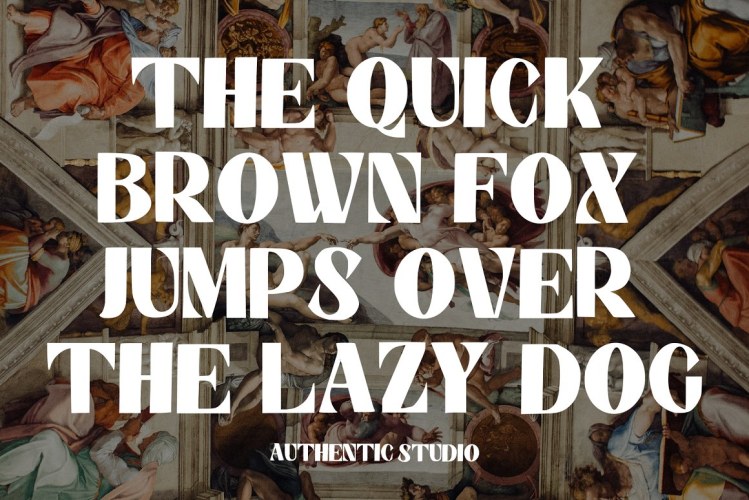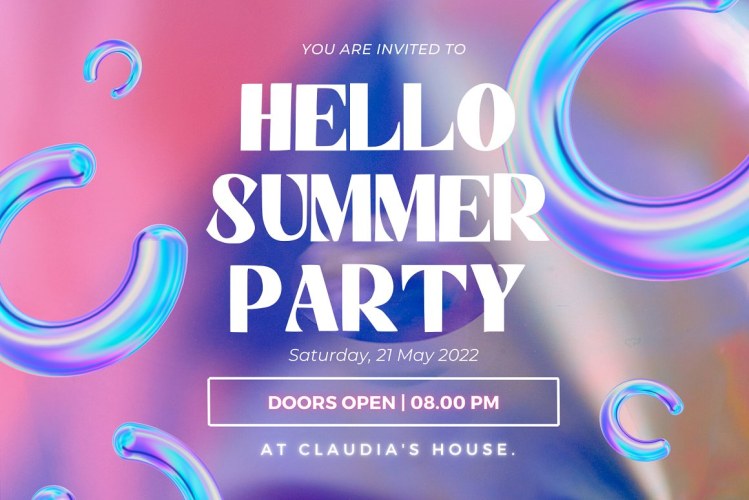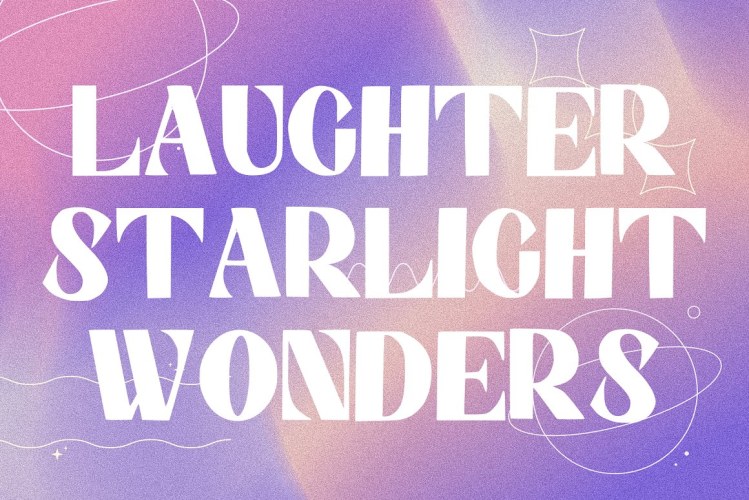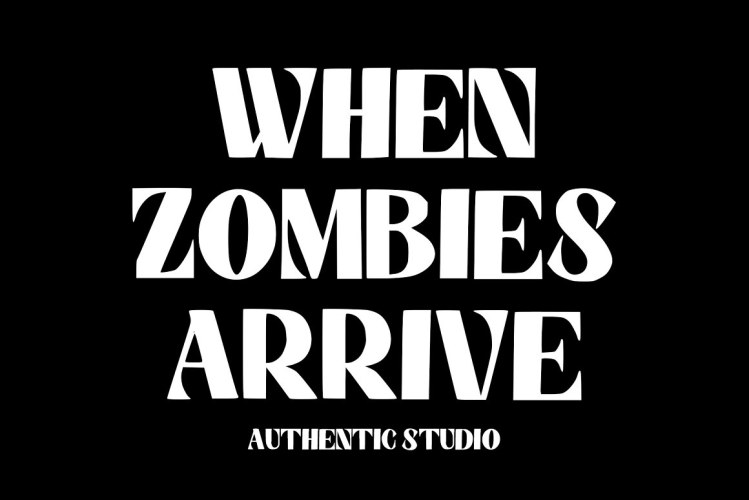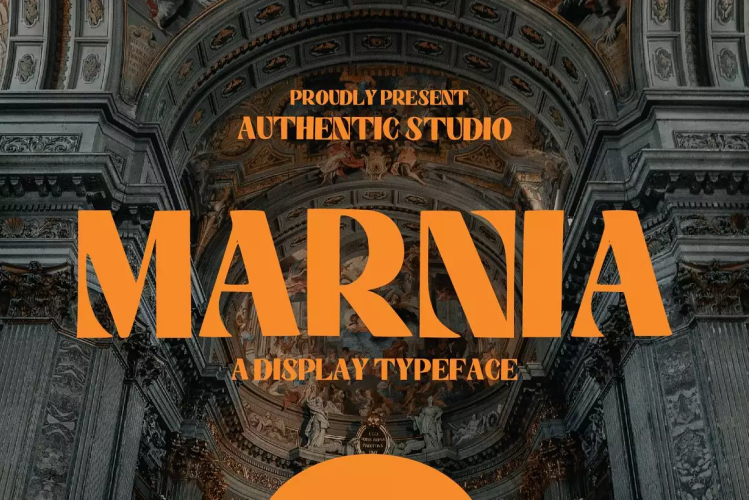
Marnia Hipster Font
Marnia is a Hipster inspired typeface. It’s retro, bold, and playful. Perfect if you need a dose of fun in your project.
Where Marnia Hipster Font works best
Marnia Hipster Font is built for size: event posters, hero headlines and billboard-style layouts.
High contrast display type like Marnia Hipster Font reads instantly in thumbnails and motion graphics.
What is Marnia Hipster Font good for?
Marnia Hipster Font is a Display Fonts typeface tagged Bold, Display, Display Fonts, Playful. It works well for headlines, logos, posters, social media graphics and branding projects that need a distinctive display fonts look.